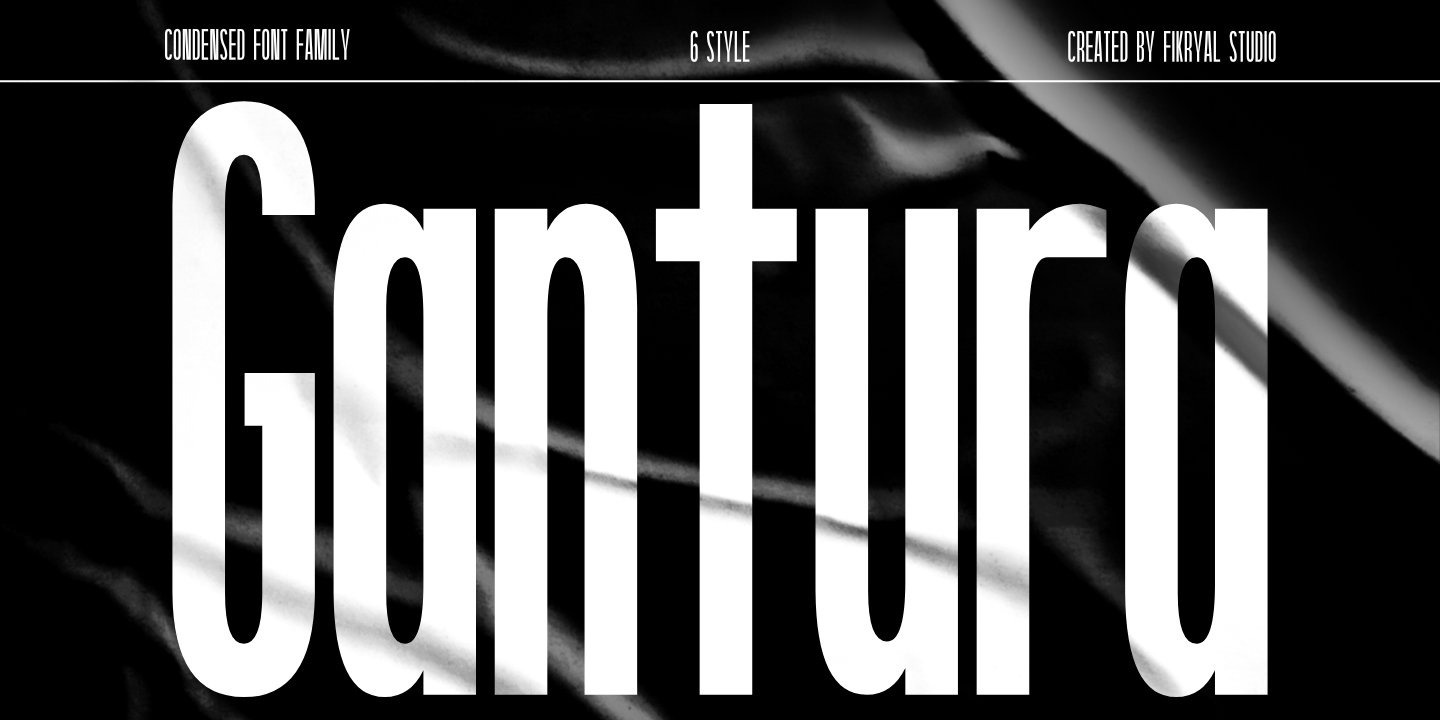
Discover the sleek Gantura Font Free Download, a condensed sans-serif typeface designed by Muhamad Fikry Nuralif that blends modern elegance with functional clarity. This font is perfect for creating a professional, space-efficient aesthetic. However, please note that you must purchase this font for commercial use. For testing purposes, you can download it for free and explore its versatile style.
The Gantura Font is ideal for various applications, such as designing minimalist logos, crafting bold headlines, creating compact packaging, or enhancing web designs and editorial layouts. Its six styles—Light, Light Italic, Regular, Italic, Bold, and Bold Italic—make it a top choice for projects that demand a clean, impactful look with efficient space usage.
Why is the Gantura Font Free Download so exciting? Its extra-condensed structure, with 421 glyphs including OpenType variants, offers a unique blend of style and practicality, ensuring legibility for both headlines and fine print. The font’s modern design delivers a professional edge, making it perfect for branding and marketing campaigns.
The Gantura Font family includes six styles: Light, Light Italic, Regular, Italic, Bold, and Bold Italic, providing flexibility for diverse design needs. These variations allow you to experiment with weights and angles, ideal for both print and digital media.